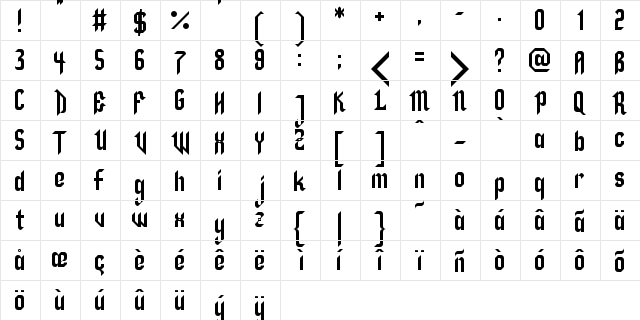
Zillah Regular
| Designer | Érico Lebedenco |
Design Context for Zillah Typeface
Zillah is a composed and adaptable typeface that performs quietly and consistently across a wide range of design contexts.